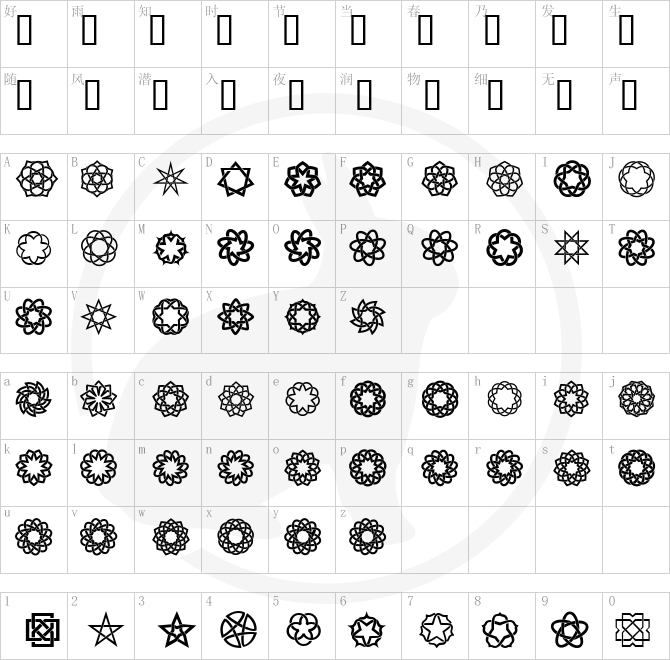
- Font Name:XAirebesk
XAirebesk.ttf is a very beautiful artistic font, XAirebesk.ttf is widely used in the design and printing of various books and pictures,XAirebesk.ttf has a strong visual impact,XAirebesk.ttf is a commonly used font in newspapers, magazines and books, and is used in posters, e-commerce Poster design, store design, logo design, font design and other fields.XAirebesk.